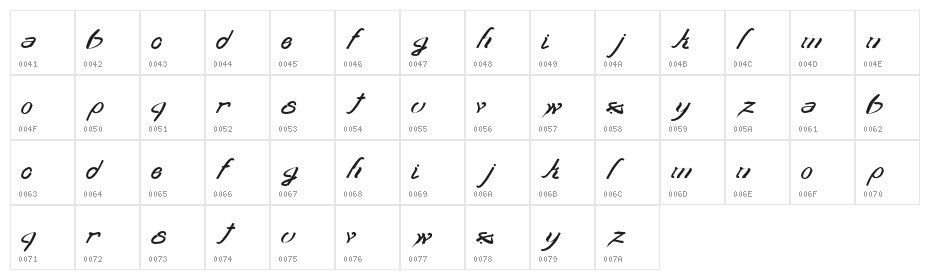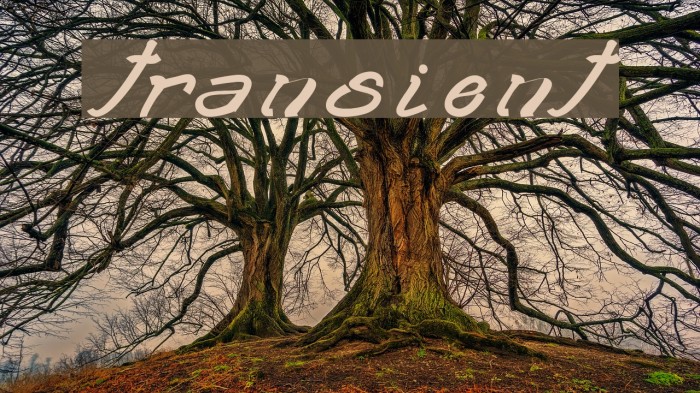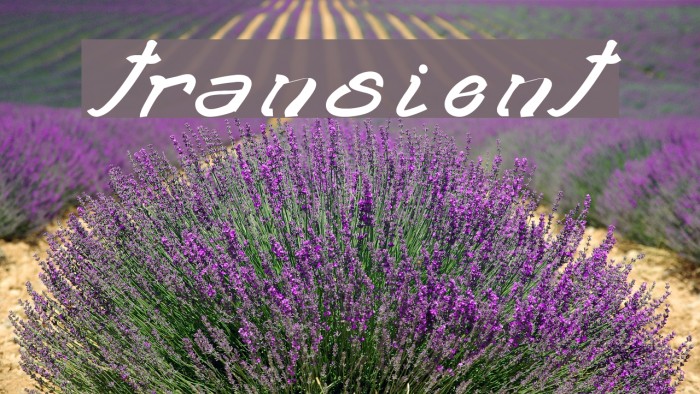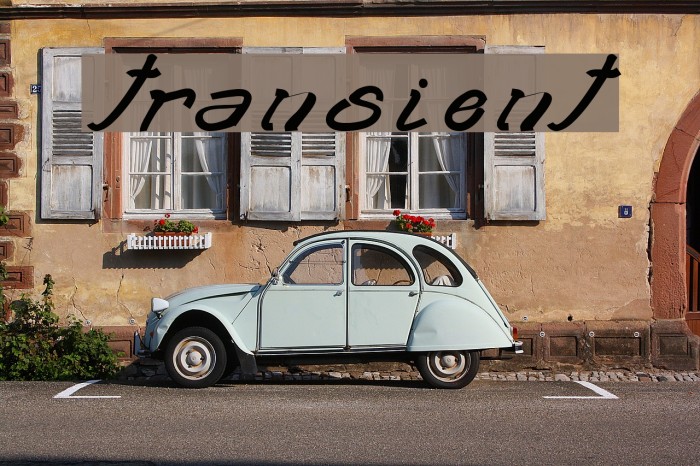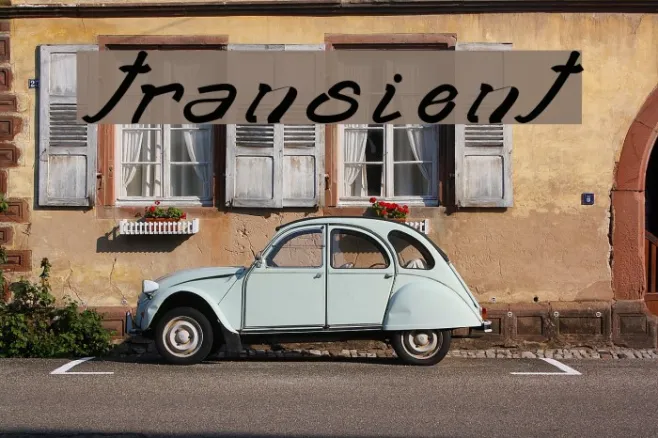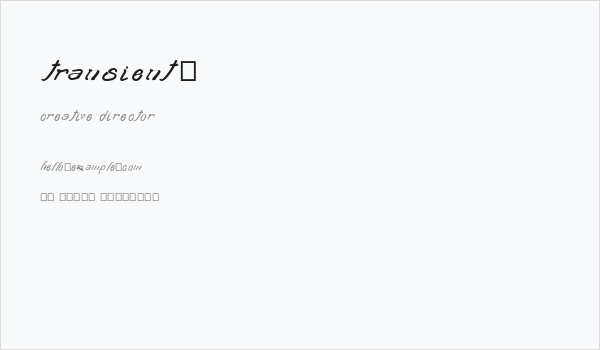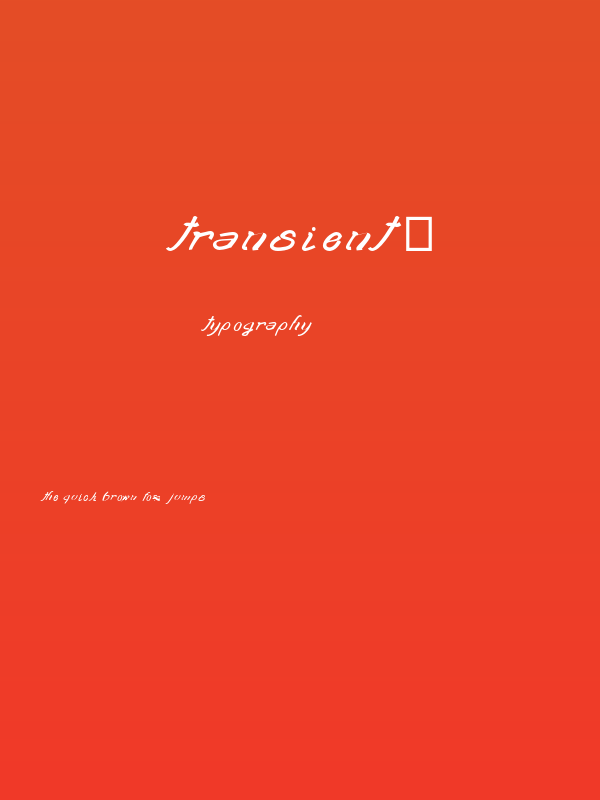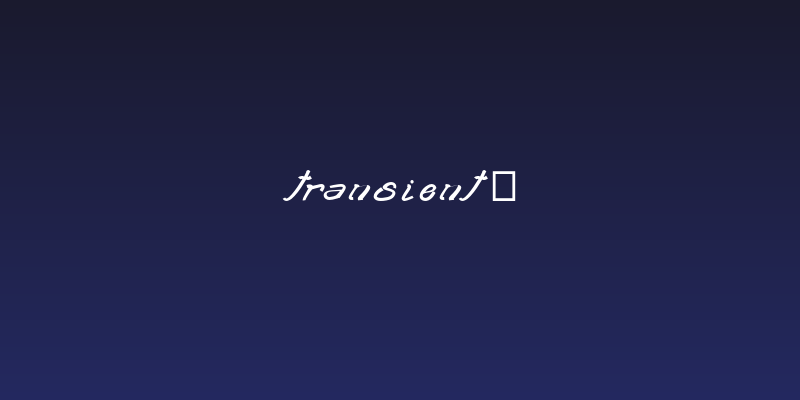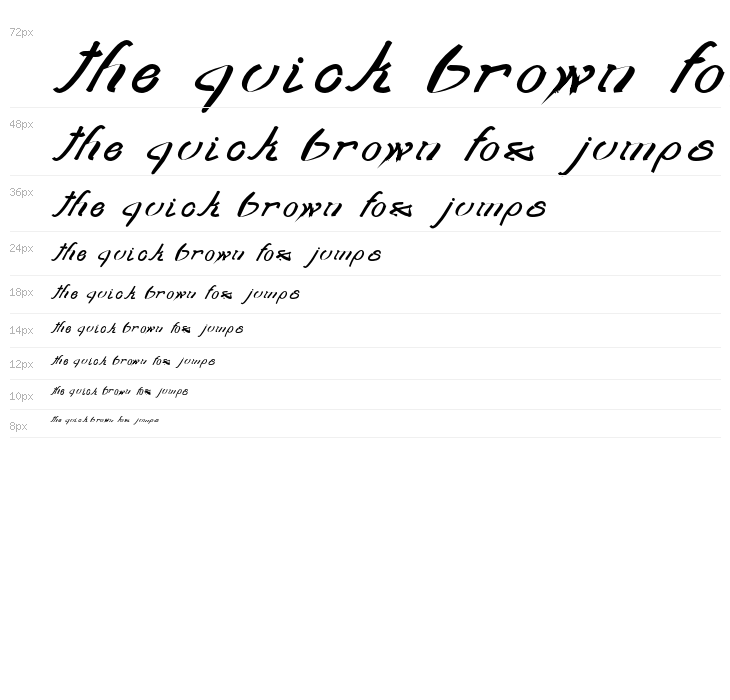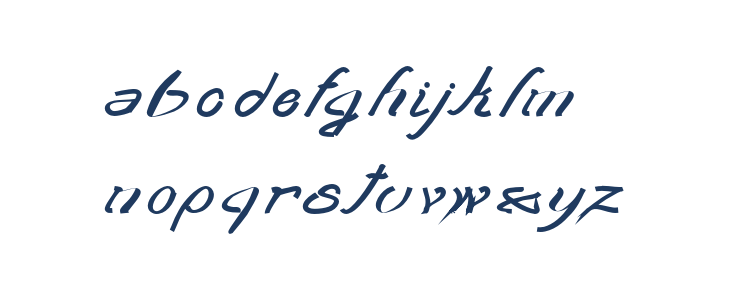
transient2 Font
transient2 Description
This font features a dynamic and flowing script style, characterized by its elegant and cursive letterforms. The strokes are smooth and connected, giving it a handwritten appearance that is both artistic and sophisticated. The uppercase and lowercase letters maintain a consistent style, with a slight slant that enhances its fluidity. The font lacks numerical and special character representations, focusing solely on the alphabet. Its overall design is reminiscent of calligraphy, making it suitable for projects that require a personal and creative touch.
| Proposed Projects | Ideal for wedding invitations, greeting cards, personal branding, and artistic projects that require a handwritten touch. |